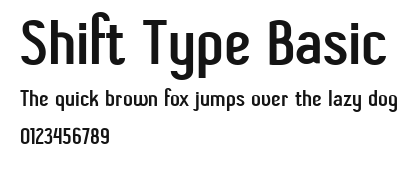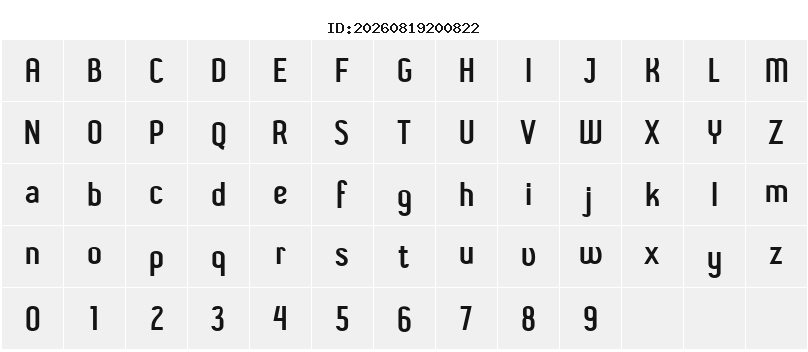
• Font Name: Shift Type Basic
• Manufacturer: Anna Chrobak
About Shift Type Basic.ttf
Shift Type Basic.ttf is a modern, elegant sans-serif font designed for ultimate readability and visual harmony. Perfect for branding, headlines, web design, and print materials.